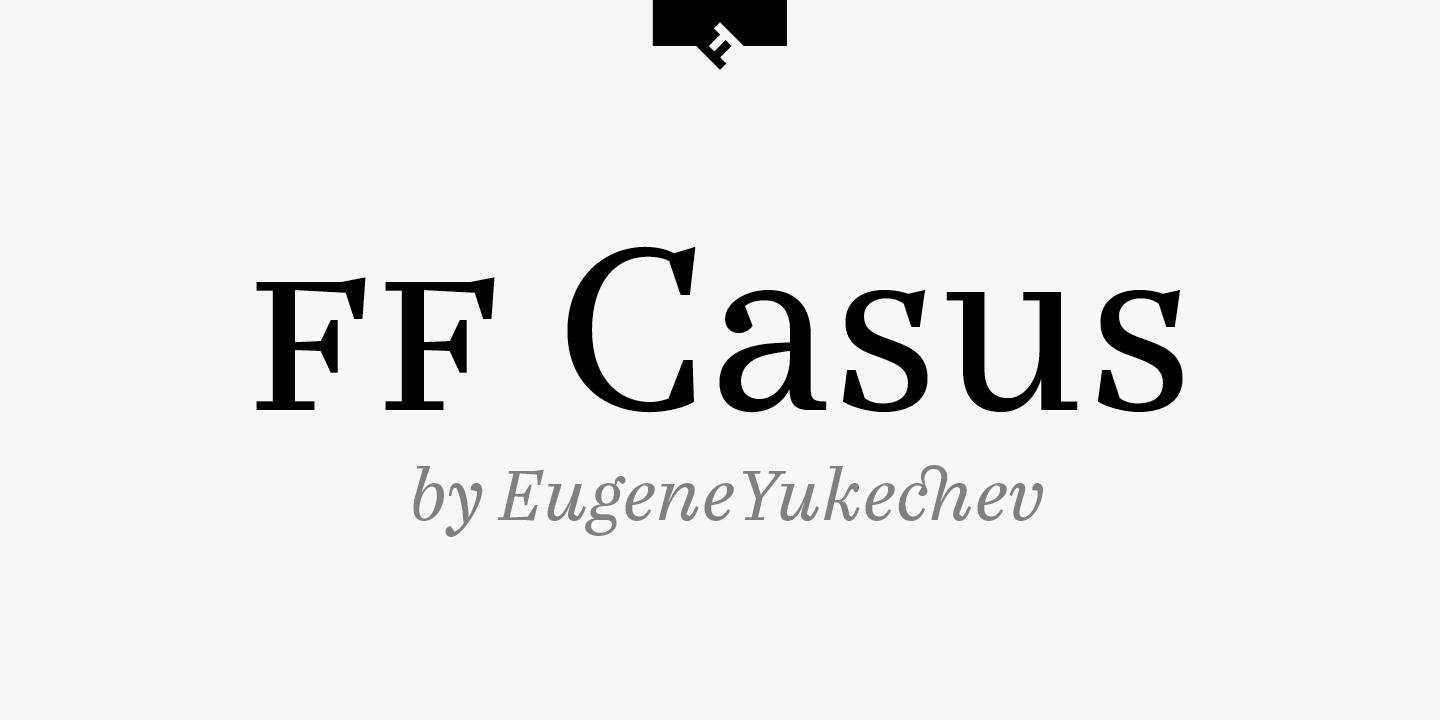
FF Casus Font is ideal for contemporary editorial designs, modern magazine layouts, sophisticated web typography, progressive corporate communications, avant-garde book publishing, cutting-edge branding projects, innovative digital interfaces, and forward-thinking cultural institution materials.
What makes FF Casus Font exciting is its distinctive contemporary character that pushes typographic boundaries through innovative letterform design and progressive aesthetic principles. This groundbreaking typeface features unique geometric construction with subtle quirks and modern personality that challenge conventional typography while maintaining exceptional readability, making it perfect for brands seeking to establish innovative visual identity and contemporary design leadership.
The FF Casus Font family includes multiple weights from light to black, plus experimental variations and contemporary character sets that provide comprehensive typographic solutions for cutting-edge design projects requiring typographic innovation and progressive visual communication approaches.
This revolutionary typeface delivers exceptional design innovation and contemporary appeal, making FF Casus Font Free Download a valuable asset for forward-thinking creative professionals. The font's progressive character makes it ideal for organizations wanting to communicate innovation and design leadership in their brand identity. Design agencies and contemporary cultural institutions particularly appreciate its ability to convey cutting-edge thinking while maintaining professional credibility in their communications. The innovatively designed letterforms ensure optimal readability while establishing distinctive brand personality across all applications from experimental publications to progressive digital platforms. Whether you're developing identity systems for technology startups or creating materials for contemporary art exhibitions, this font provides the perfect combination of typographic innovation and commercial viability. Creative professionals consistently select this typeface for projects requiring that ideal synthesis of experimental design and functional excellence, making it essential for progressive communications that demand both creative distinction and professional effectiveness in today's competitive design landscape.